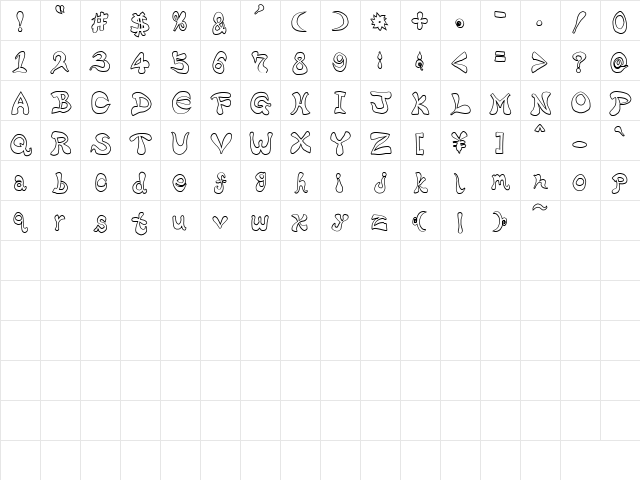
Bharatic-Font(W) Regular
Design Context for Bharatic-Font(W) Typeface
Bharatic-Font(W) is a composed and adaptable typeface that performs quietly and consistently across a wide range of design contexts.